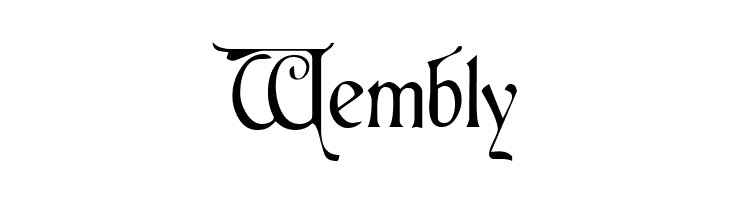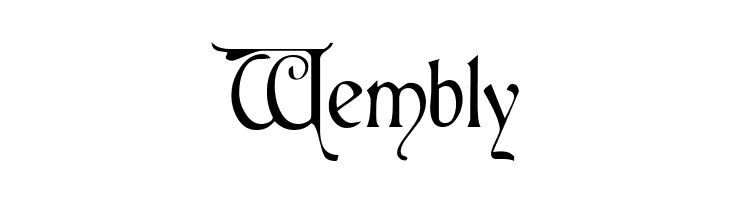
Armadilla Font
- Font: Armadilla
( Fonts by Fernando Carvente - serifdechocolate.wordpress.com )
A bold, intricate Blackletter font with ornate, angular letterforms.